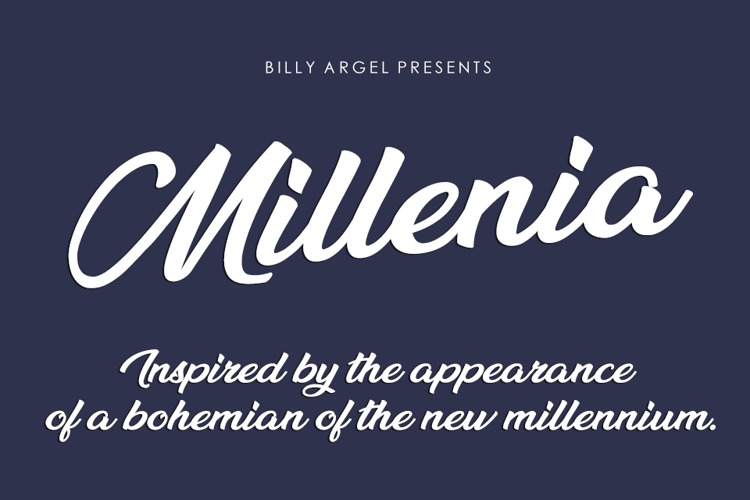
Millenia Script Font
It’s a carefully hand-lettered bold script font from designer Billy Argel. Millenia has a lots alternative of each letter to make it look unique and attractive. It is can give a solid and standout impression. Millenia is suitable for logotype, digital printing, packaging, T-shirt, social media post, Merchandise, and many more.